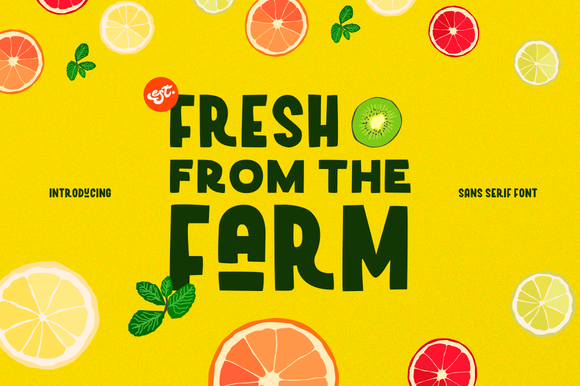
Fresh from the Farm Font
Introducing Fresh from the Farm Font, the sans serif font that exudes joy, playfulness, and a touch of rustic charm! Dive into the world of local fresh markets, where vibrant colors, cheerful smiles, and the tantalizing aroma of farm-fresh produce fill the air. This font captures the essence of those bustling marketplaces, promising to infuse your designs with a delightful, down-to-earth flair.
Imagined by the creative minds at Ease Type, Fresh from the Farm Font is crafted to evoke a sense of nostalgia and lightheartedness. Its playful curves and unpretentious style bring a touch of whimsy to any project, making it the perfect choice for creating logos, posters, branding, and invitations that radiate warmth and personality.
Step into a world where quirky characters dance across your screen, inviting viewers to embark on an adventure through sun-kissed fields and farmers' markets brimming with life. This font is a celebration of the simple pleasures in life, a reminder to embrace the beauty of fresh starts and the joy of local produce.
With Fresh from the Farm Font, your designs will blossom with a vibrant energy that captivates your audience. Its easy-going nature makes it versatile enough to add a touch of charm to any project, from playful illustrations to heartfelt greeting cards. Unleash your creativity and let this font guide you through a world of endless design possibilities.
So, if you're ready to inject a dose of fun and playfulness into your next project, look no further than Fresh from the Farm Font. Its unique charm and versatility will transform your designs into captivating works of art, leaving a lasting impression on all who see them.